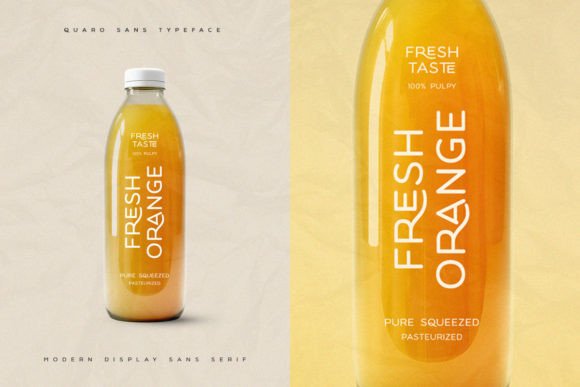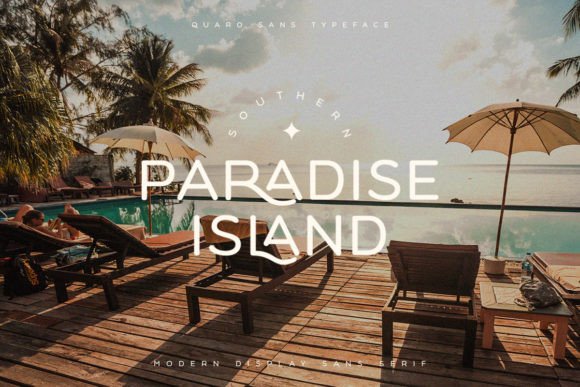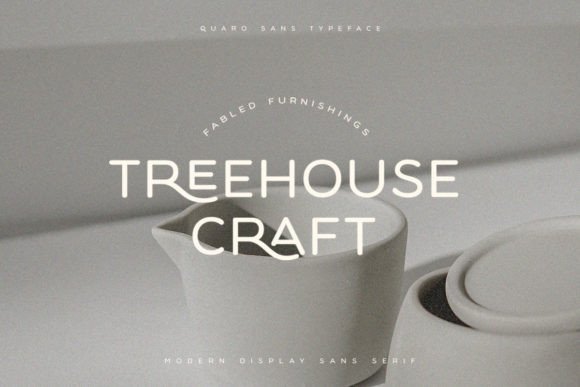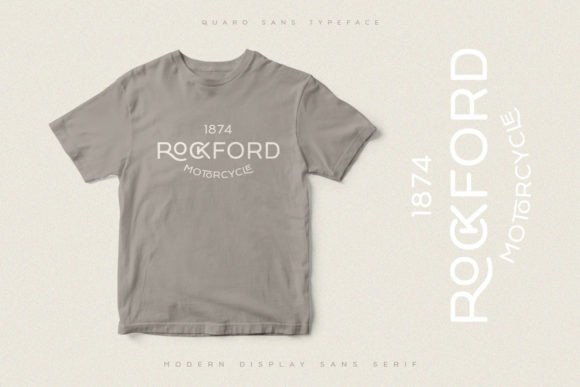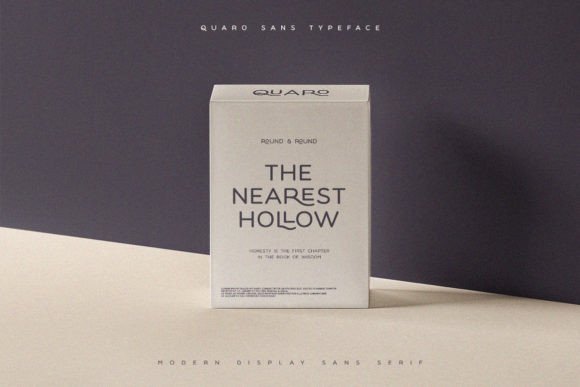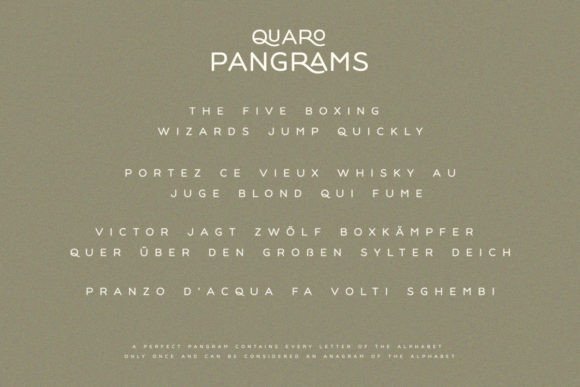
Introduction to Quaro Font
Quaro is a stylish and modern sans serif display font.
Contemporary and fresh, it is perfect for any design you wish to create Add it to your creative projects and make them outstanding.
Key Features of Quaro Font
Why Choose Quaro Font?
Quaro Font offers exceptional quality and versatility, making it a valuable addition to your design toolkit. Whether you’re creating for personal projects or commercial use, Quaro Font delivers professional results.